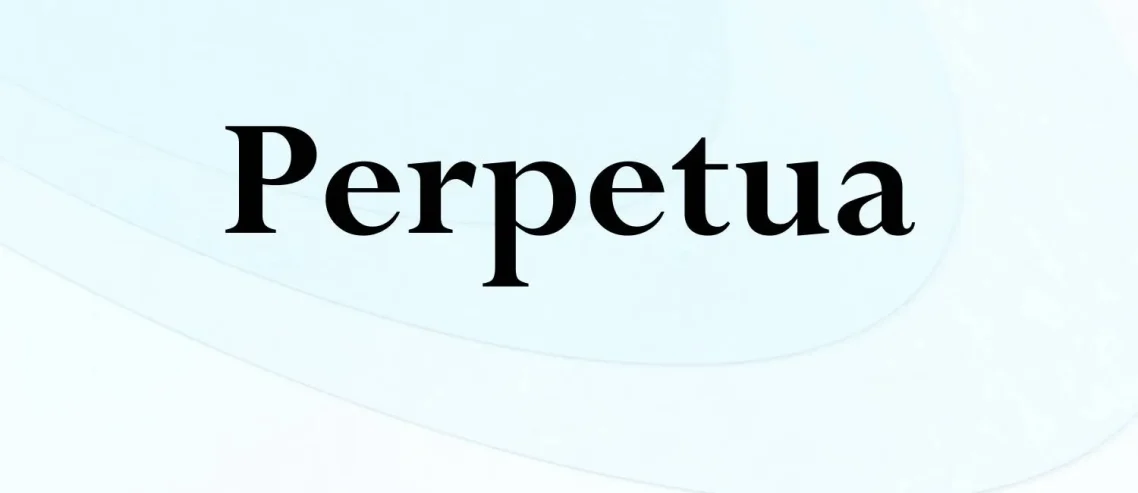
Designed by the accomplished English sculptor and typographer Eric Gill, Perpetua Font is a timeless and classic serif typeface. Gill, known for his contributions to the world of typography, created Perpetua in 1925.
The font exudes a graceful and refined aesthetic, making it well-suited for a range of applications, particularly in editorial design and literature. The serif details of Perpetua contribute to its legibility, while the overall design imparts an air of sophistication and tradition to the text. This versatile typeface continues to be appreciated for its enduring elegance in various design contexts.
Name | Perpetua Font |
Designer | stonemason Eric Gill |
Style | Serif |